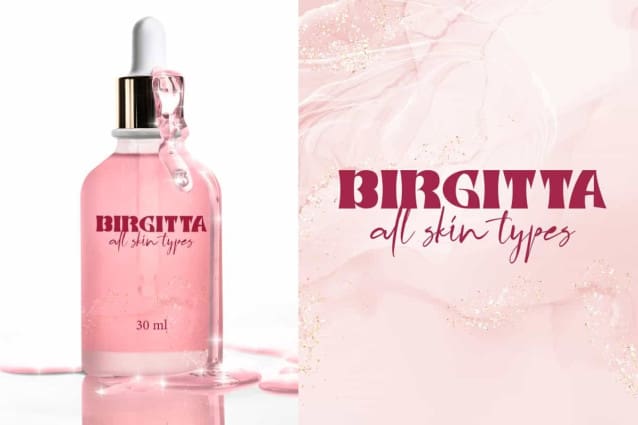
Pink Pencil Font
Pink Pencil Font is a strong eye catchy serif display font with stylish all caps letters. This font has bold letters with a attractive shape so it looks cool. It will be perfect for any designs, such as brand image, cover, custom design, invitation, label, marketing material, menu, poster, product packaging, quote, signage, stationery, web, and many more!
Pink Pencil Font includes full set of ALL CAPS for Uppercase and Lowercase Basic Characters, Numerals, Punctuation, and Symbol. The characters of this font will give brave feels and also a perfect choice for many industries, such as accessories, advertising, beauty product, comic, event or festival, fashion, game, kids stuff, printing, publishing, etc.